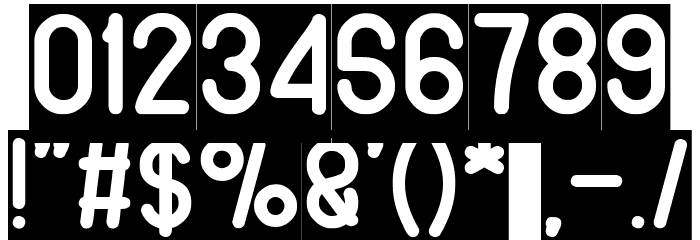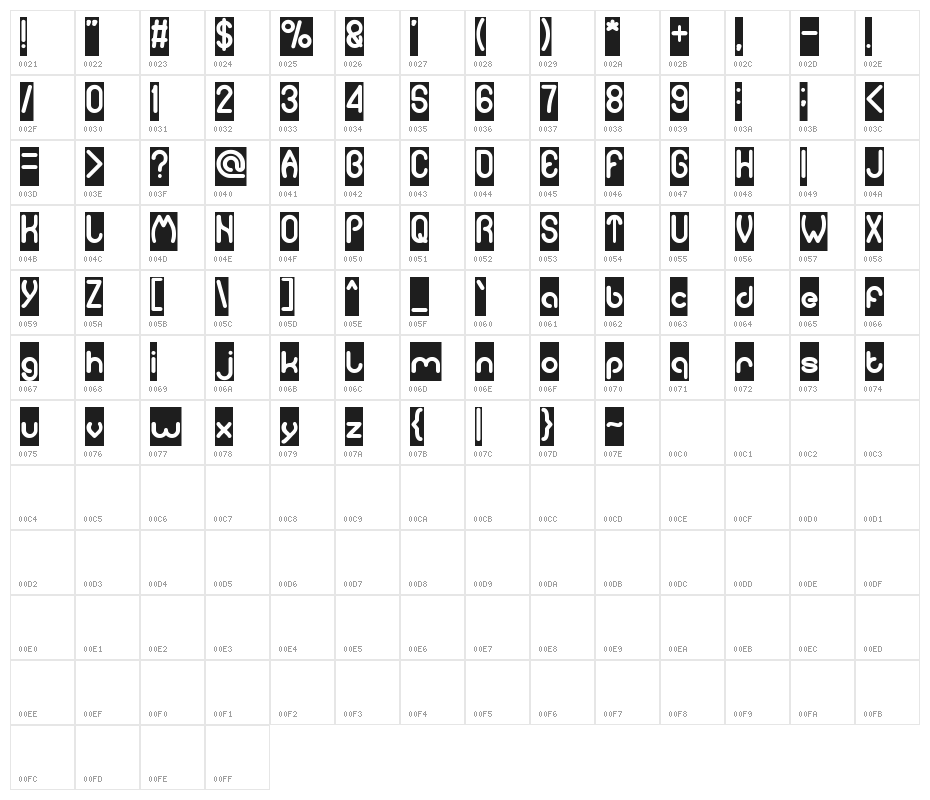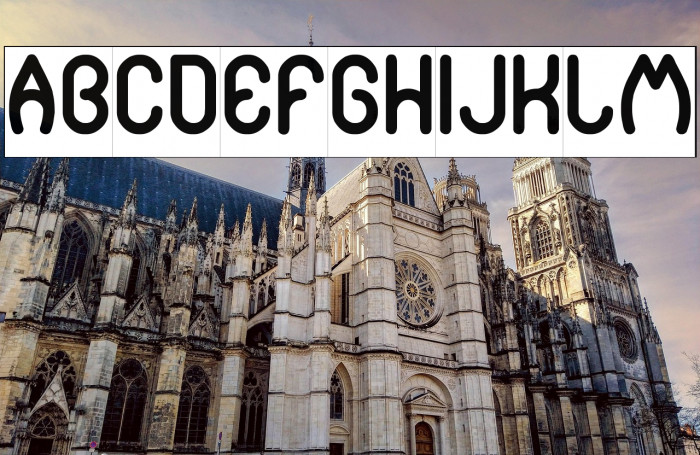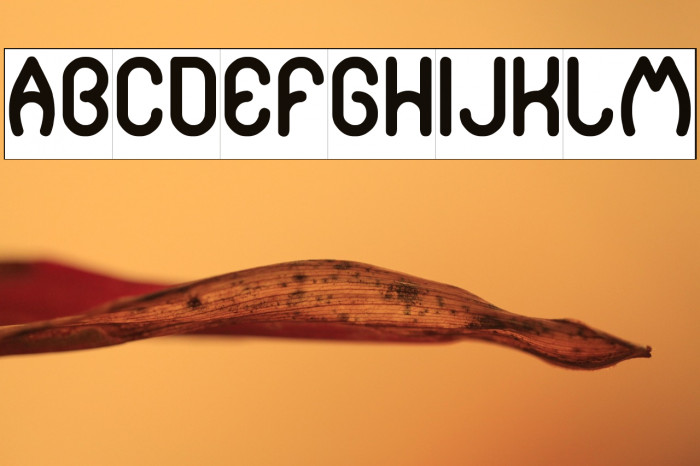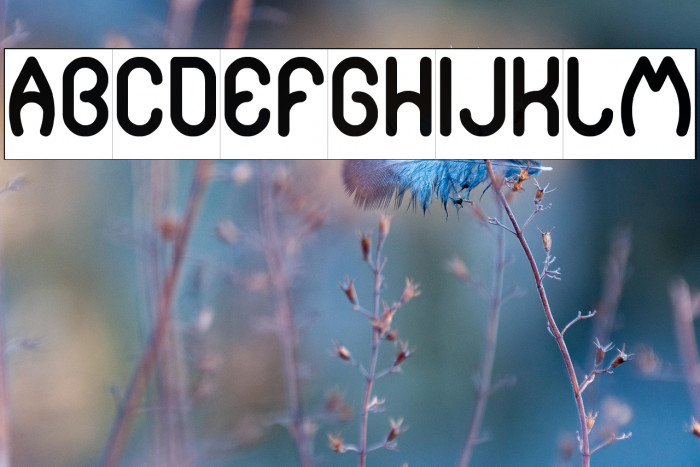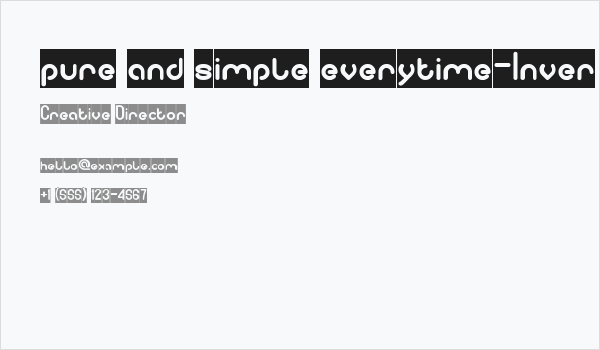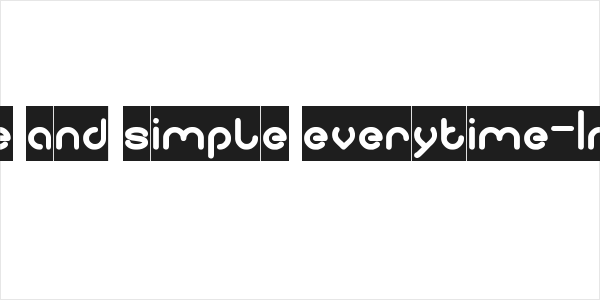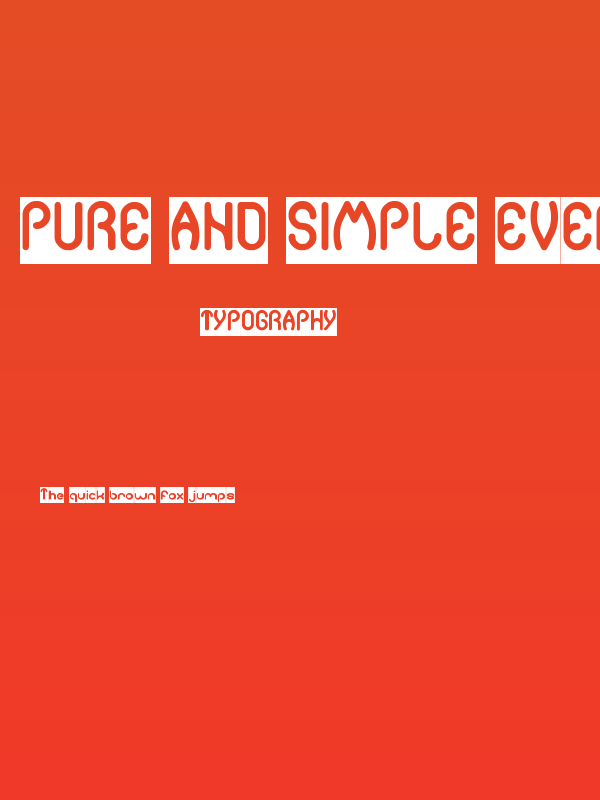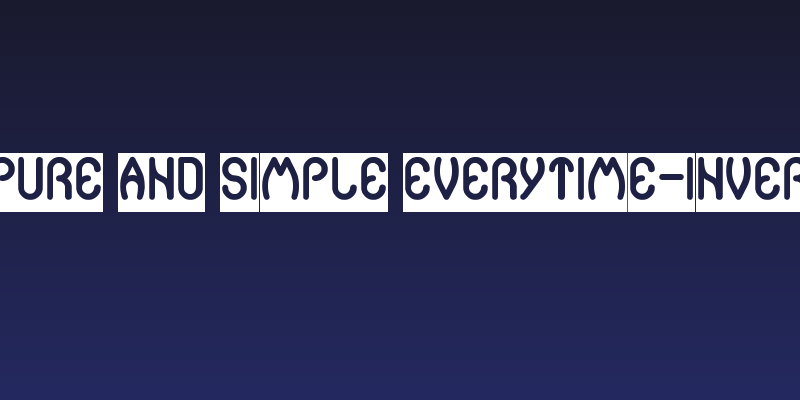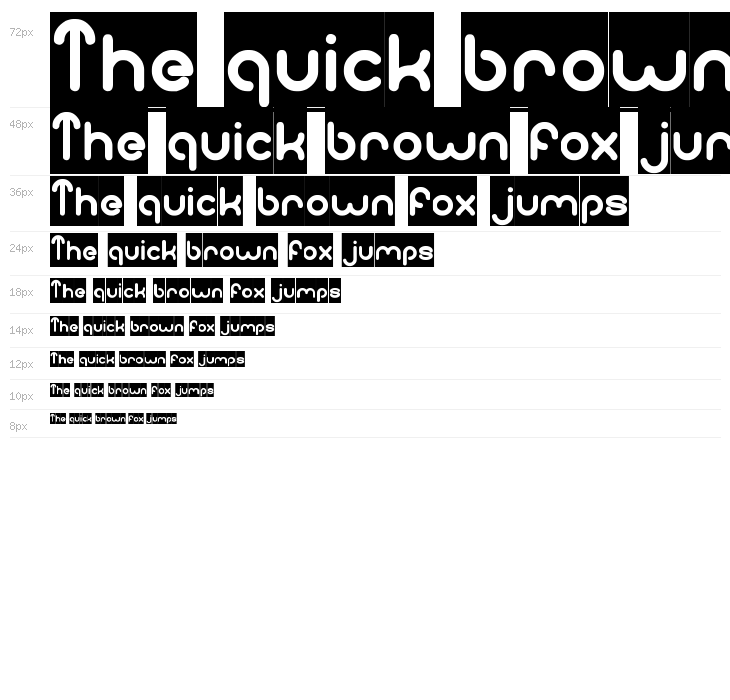
pure and simple everytime-Inver Font
pure and simple everytime-Inver Description
This font features a playful and rounded design, characterized by its soft curves and smooth lines. The letters are bold and have a consistent thickness throughout, creating a friendly and approachable appearance. The uppercase and lowercase letters maintain a uniform style, with rounded edges and a slight whimsical touch. The numbers and special characters follow the same design principles, ensuring a cohesive look across all elements. This font is highly legible and versatile, making it suitable for various design projects that require a touch of fun and creativity.
| Proposed Projects | Ideal for children's books, playful branding, casual invitations, and creative posters. |